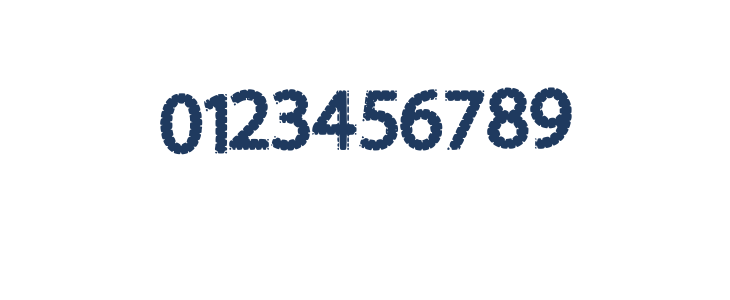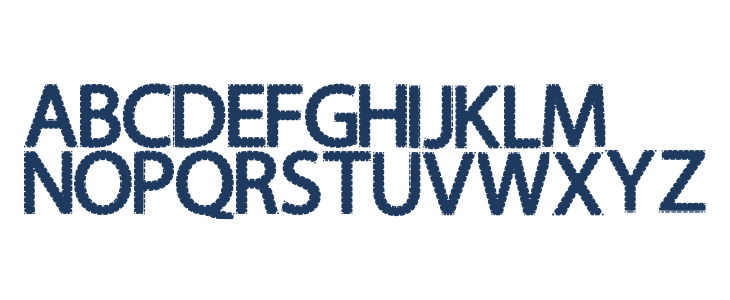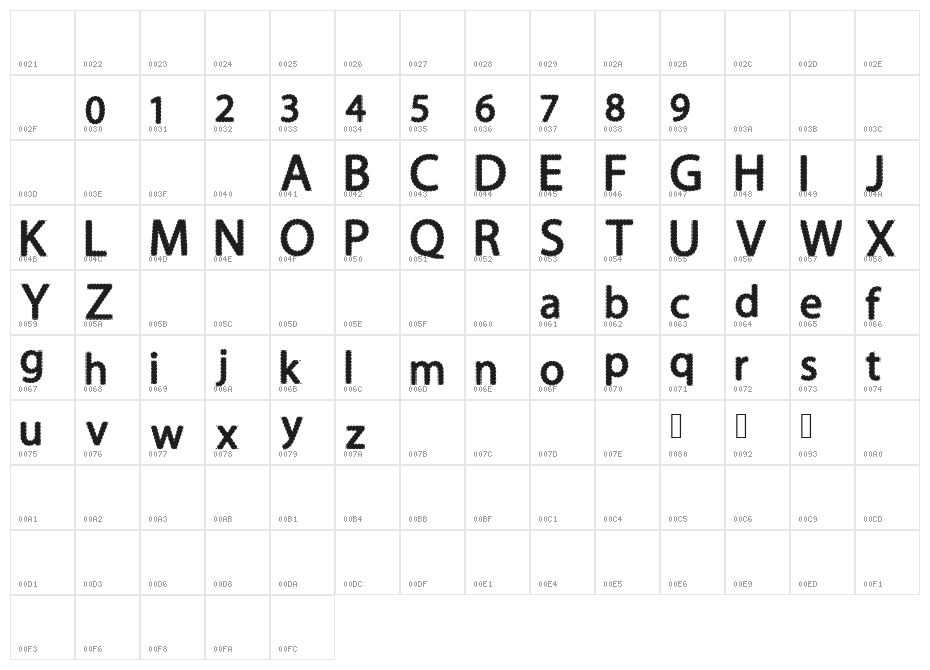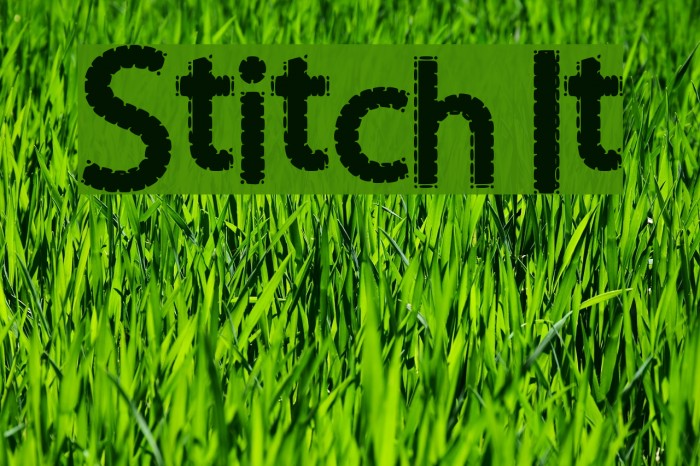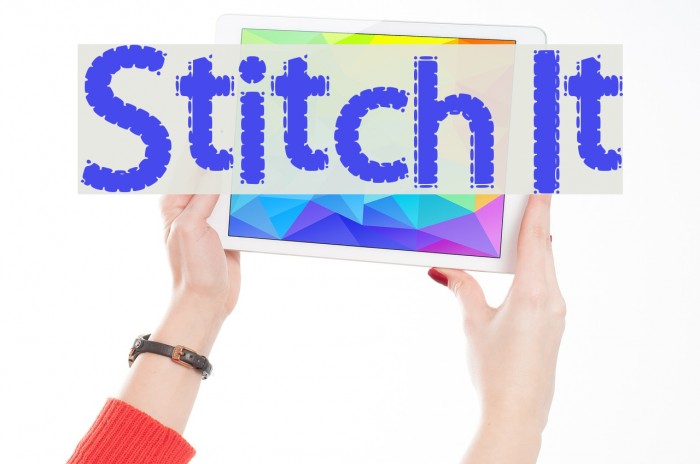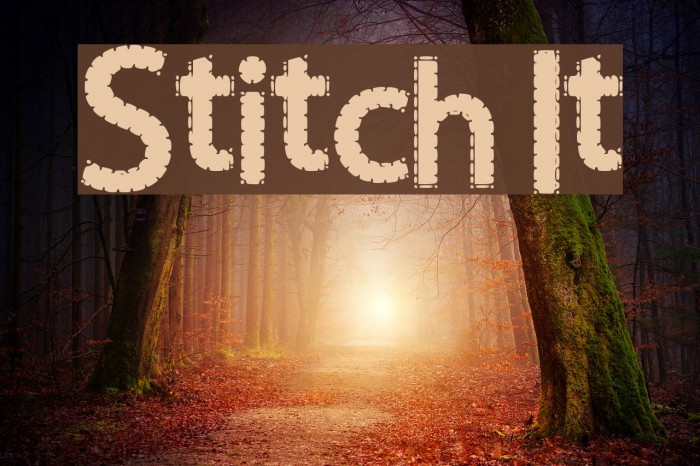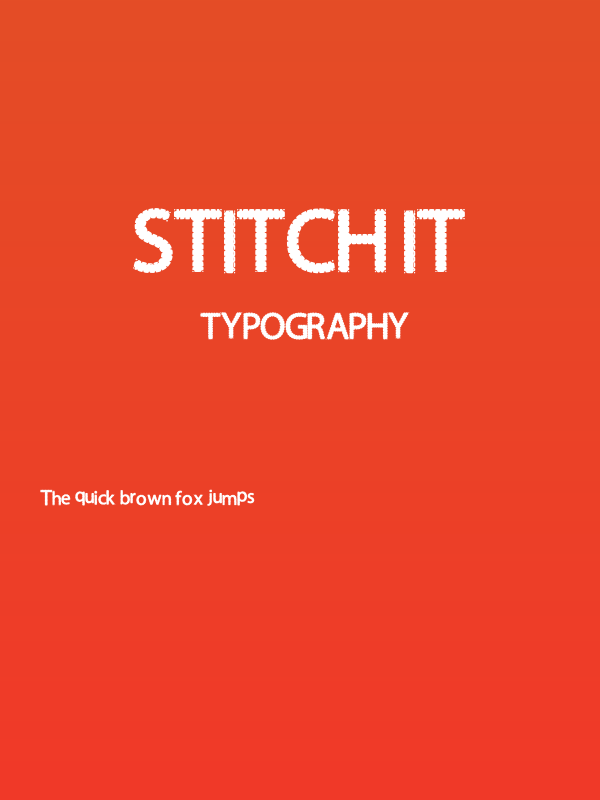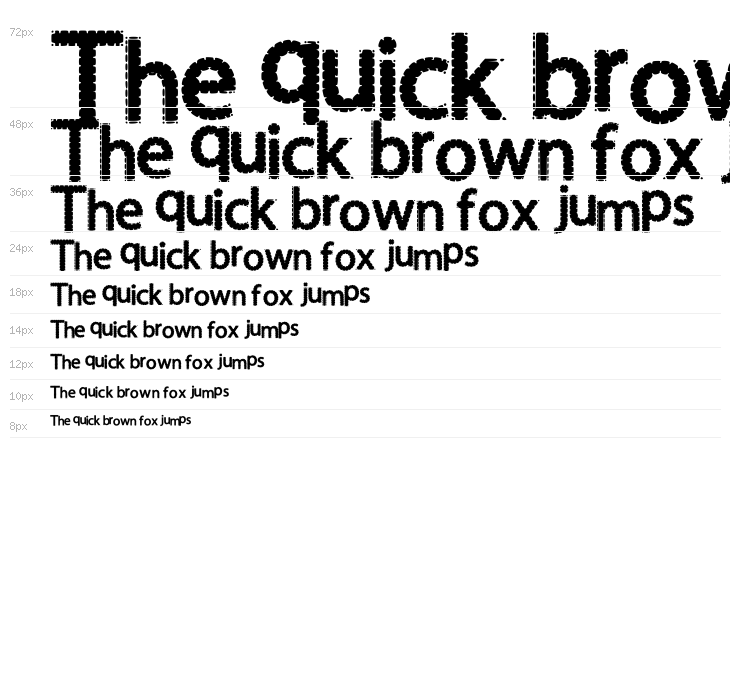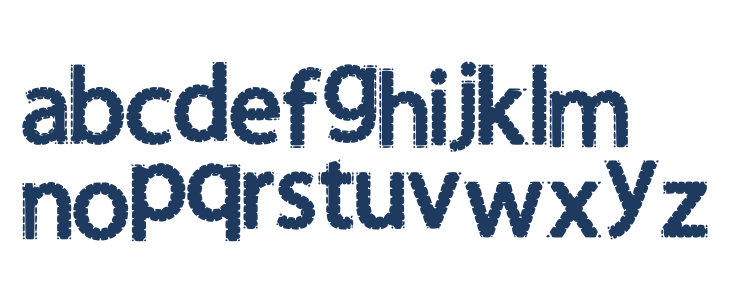
Stitch It Font
Stitch It Description
This font features a unique, playful design that mimics the appearance of stitched or embroidered letters. Each character is composed of small, rounded dots that give the impression of being sewn onto the page. The overall look is both whimsical and textured, making it stand out in any design. The uppercase and lowercase letters maintain a consistent style, with rounded edges and a uniform dot pattern. Numbers and special characters follow the same stitched theme, ensuring a cohesive appearance across all text elements. This font is perfect for projects that require a handmade or crafty aesthetic, adding a touch of creativity and charm.
| Proposed Projects | Ideal for craft projects, children's books, DIY-themed graphics, and playful branding. |